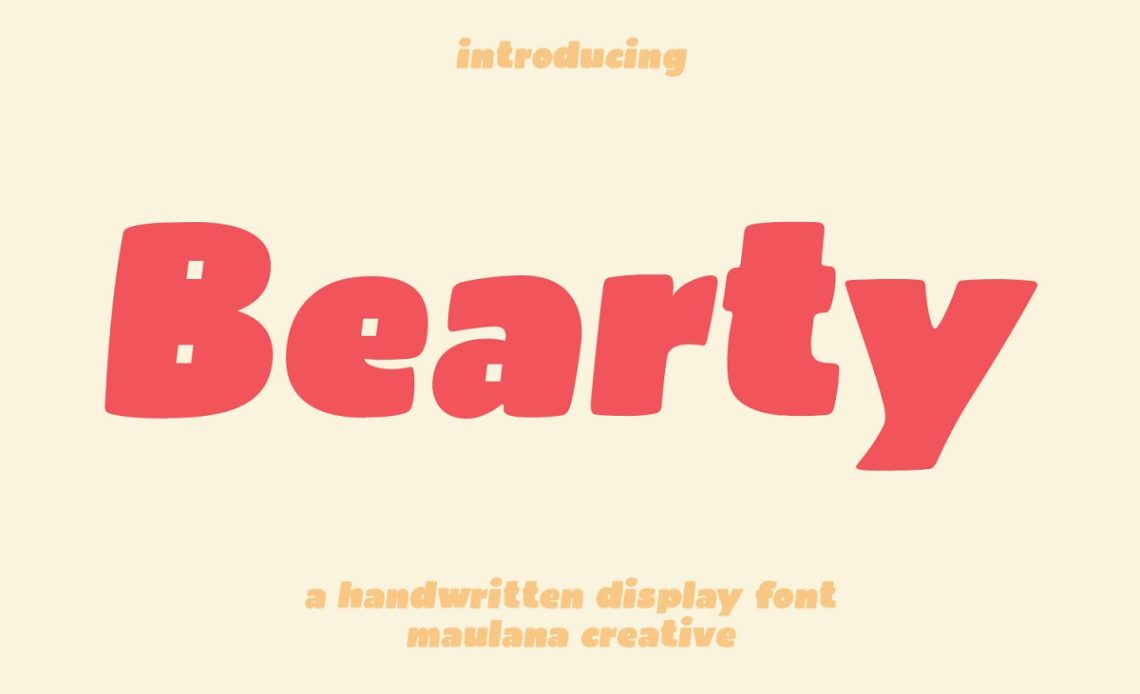
Introducing Bearty Handwritten Display Font, a font designed specifically for those who crave a touch of casual elegance in their life. Created by the talented Maulana Creative, this font is the perfect choice for all your T-shirt design needs.
Bearty is not your average font. With its slanted heavy strokes and playful characters, it exudes a fun and whimsical vibe that will instantly captivate your audience. But it doesn't stop there – this font also comes with a variety of ligatures and alternates, allowing you to add an extra dose of creativity to your work.
One of the standout features of Bearty is its extensive language support. With over 100+ languages covered, you can confidently create designs that resonate with people from all corners of the world. Whether you're designing a logo, crafting social media posts, or even working on movie or book titles, Bearty has got you covered.
But that's not all – Bearty is also a versatile font that can handle both short and long text letters with ease. Its unique characteristics make it a great choice for your secondary text font, whether you're pairing it with a script or serif font. The possibilities are endless when it comes to creating stunning works with Bearty.